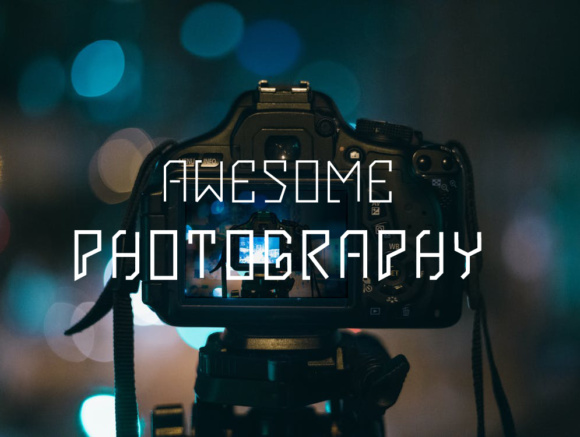
Dusker Tall Font
Journey into the realm of Dusker Tall, a typeface that dances on the edge of elegance and playfulness. This decorative font, designed by the visionary Laks Mi, has the power to transform your digital creations into captivating works of art.
With its techno font style and a symphony of variations, Dusker Tall is a versatile chameleon, seamlessly morphing into the tapestry of your design dreams. Its essence is both bold and delicate, like a ballerina pirouette across a moonlit stage.
Unleash your inner rebel and embrace the unconventional spirit of Dusker Tall. Let it be your guide as you navigate the digital landscape, crafting designs that ignite curiosity and inspire awe. Break free from the mundane and embrace the extraordinary with every keystroke.
Dusker Tall is a font that speaks to the heart, a symphony of pixels and vectors that evoke emotion and leave a lasting impression. It's not just a font; it's an experience, a journey that transports you to a world where imagination knows no bounds.